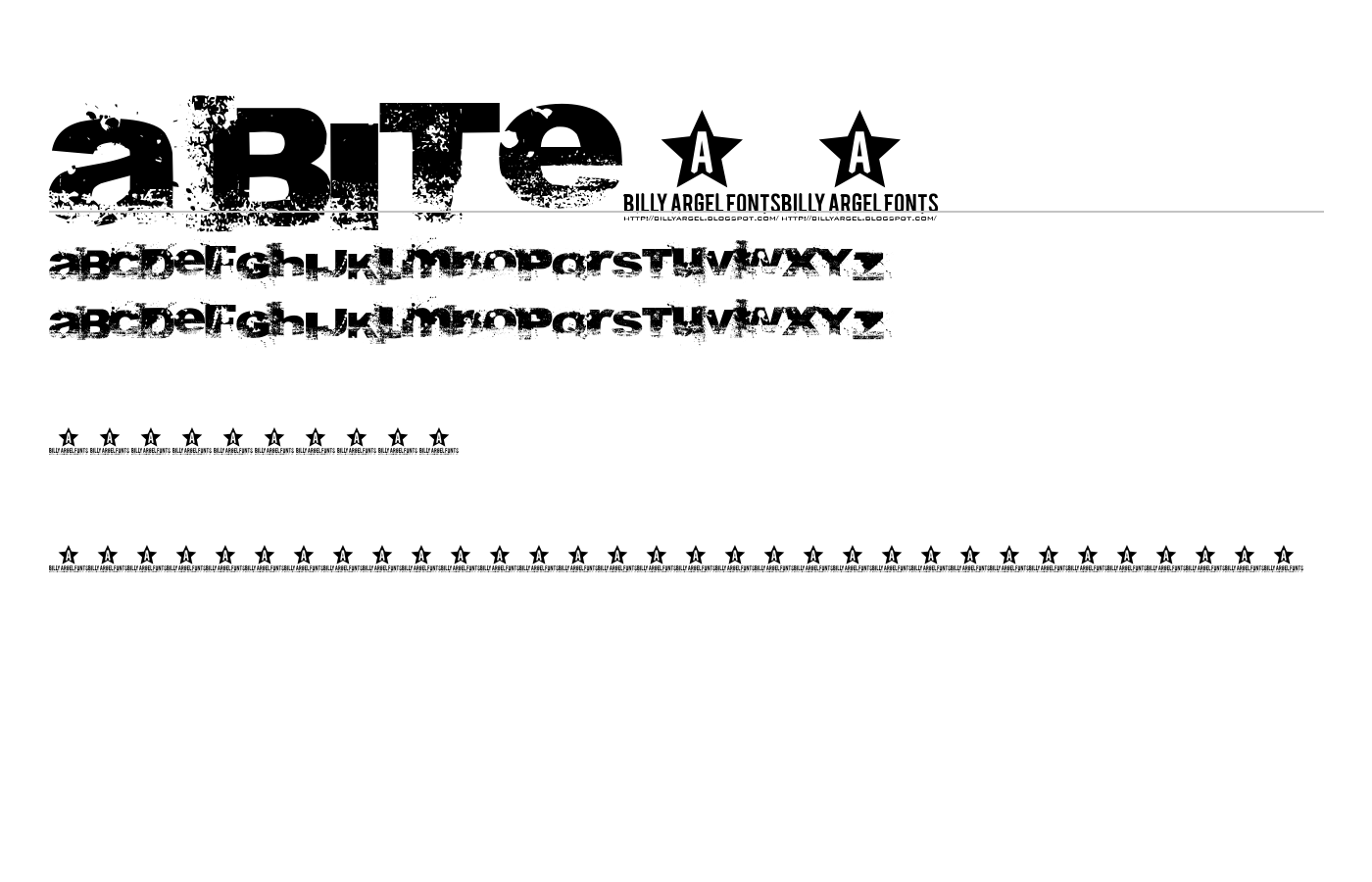
A Bite is a bold, distressed sans serif font with a heavy, textured appearance that gives it a raw, gritty feel. Its thick, blocky letterforms with rough, eroded edges make it perfect for designs that want to communicate toughness, rebellion, or an urban, edgy vibe. This font works well in posters, logos, and headlines where a strong, impactful statement is needed.
A bite Font
About A bite Font
| Font family | A bite Font |